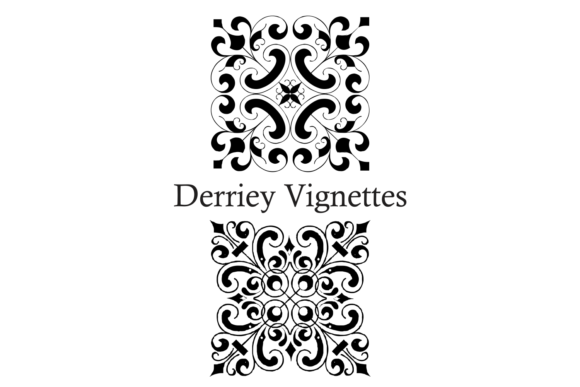
Derriey Vignettes Family Font: A Timeless Legacy of Typographic Excellence
In the realm of typography, few names evoke the same level of reverence as Charles Derriey, a pioneering typefounder, punchcutter, and printer from Paris. Born on August 17, 1808, in Moissey, Jura, France, Derriey’s contributions to the art of typography have left an indelible mark on the industry. Intellecta’s digitization of his remarkable heritage has given rise to the Derriey Vignettes Family Font, a testament to the enduring beauty of his work.
The Life and Legacy of Charles Derriey
Charles Derriey’s journey into typography began with his early years of learning the arts and crafts of printing at Besançon. In 1839, he established his own print shop in Paris, equipped with a rotative printer and other state-of-the-art equipment. This marked the beginning of a remarkable career that would see him produce some of the most exquisite typographic masterpieces of his time.
Derriey’s work is perhaps best exemplified in his 1862 specimen album, Gravure et fonderie de C. Derriey, which showcases his stunning ornaments and typographic designs. This magnificent album, published at his Parisian foundry located at Rue Notre-Dame-des-Champs, 6&12, has become a legendary reference point for typography enthusiasts and historians alike.
The Derriey Vignettes Family Font
Intellecta’s meticulous digitization of Charles Derriey’s fantastic heritage has resulted in the creation of the Derriey Vignettes Family Font. This collection not only features the original ornaments and fleurons but also includes new interpretations and designs inspired by Derriey’s original work. The result is a tour-de-force of typographic excellence, offering designers and crafters a wealth of creative possibilities.
The Derriey Vignettes Family Font is a treasure trove of elegant ornaments, frames, and decorative elements, each one meticulously crafted to reflect the essence of Derriey’s original designs. Whether used for print or digital projects, this font collection offers a timeless quality that is sure to elevate any design.
Design and Craftsmanship
The Derriey Vignettes Family Font is a testament to the art of traditional typography and the skill of its creator. Charles Derriey’s work was characterized by its attention to detail, precision, and beauty. Each element in the font collection, from the intricate ornaments to the delicate fleurons, reflects Derriey’s unwavering commitment to excellence.
For designers and crafters, the Derriey Vignettes Family Font offers a unique opportunity to incorporate a piece of typographic history into their work. Whether creating wedding invitations, stationery, or digital graphics, this font collection provides a level of sophistication and elegance that is hard to match.
The Foundry and Its Legacy
Charles Derriey’s foundry, which operated from 1839 until its sale to Turlot on October 1, 1880, was a hub of typographic innovation during its time. Derriey’s decision to sell his foundry marked the end of an era, but his legacy continues to inspire and influence typography to this day.
The Derriey Vignettes Family Font serves as a poignant reminder of the enduring power of typography to shape our visual culture. As a tribute to Charles Derriey’s remarkable heritage, this font collection ensures that his contributions to the art of typography will continue to inspire generations of designers and crafters.
The Derriey Vignettes Family Font is a remarkable tribute to the life and work of Charles Derriey, a true pioneer in the world of typography. Intellecta’s digitization of his heritage has given rise to a font collection that is both a celebration of the past and a tool for creative expression in the present.
For anyone passionate about typography, design, or craftsmanship, the Derriey Vignettes Family Font is an indispensable resource. Its timeless beauty, elegance, and sophistication make it an ideal choice for a wide range of projects, from traditional print materials to innovative digital designs.
As we continue to push the boundaries of typography and design, it’s essential to acknowledge and appreciate the contributions of those who have come before us. The Derriey Vignettes Family Font is a fitting tribute to Charles Derriey’s legacy, ensuring that his remarkable heritage will continue to inspire and delight for years to come.